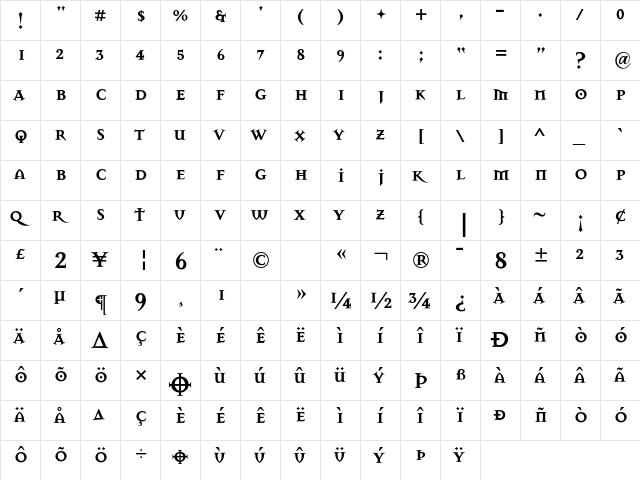
MasonSuper Bold
Design Context for MasonSuper Typeface
MasonSuper takes a measured approach to typography — its balanced proportions and neutral character make it a reliable workhorse for both digital and print work. The heavy weight commands attention and anchors typographic hierarchies.